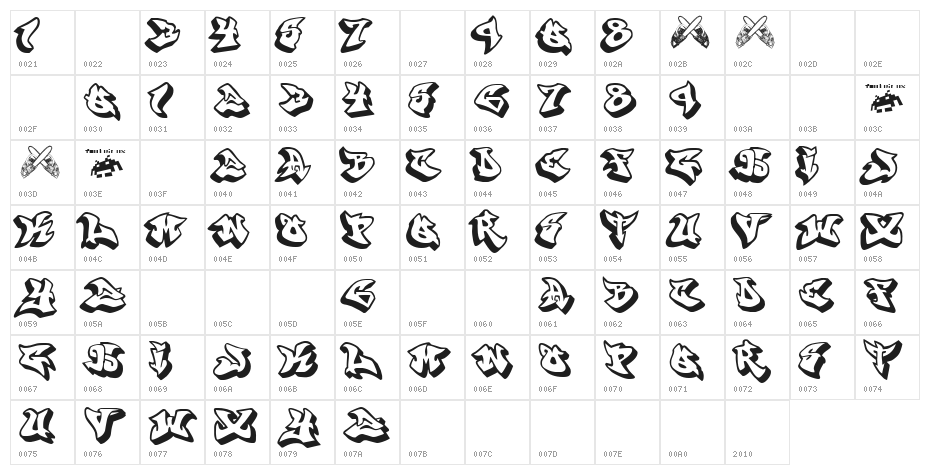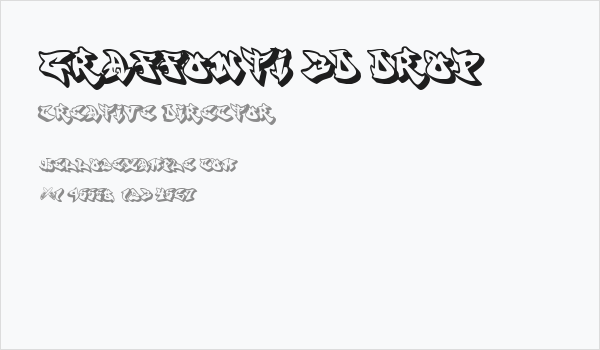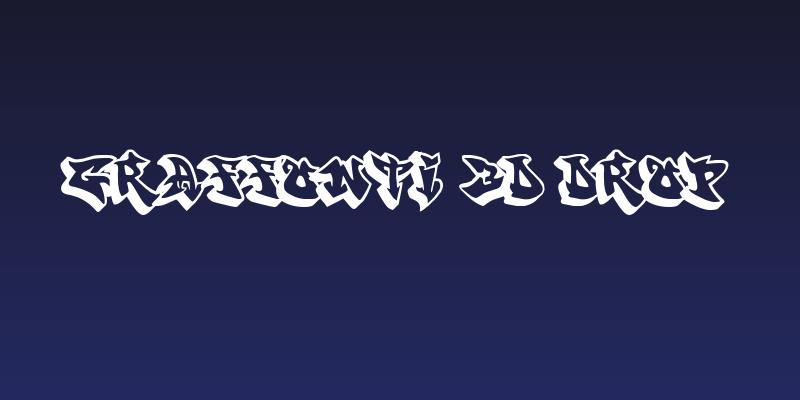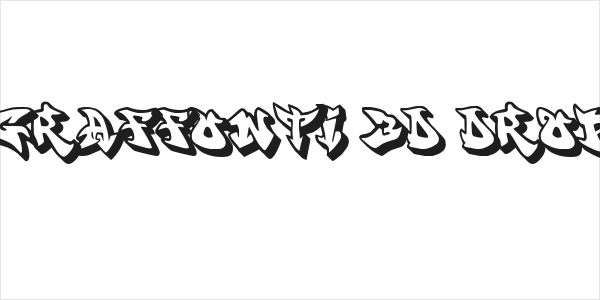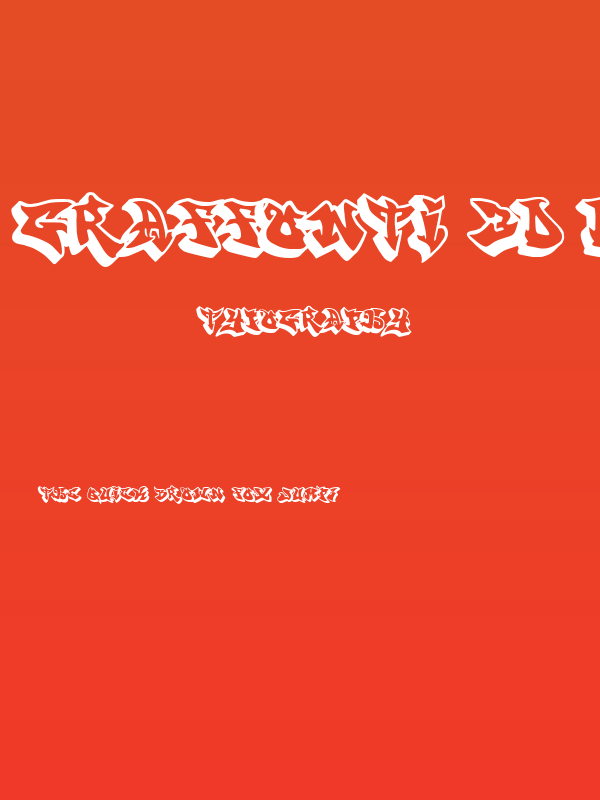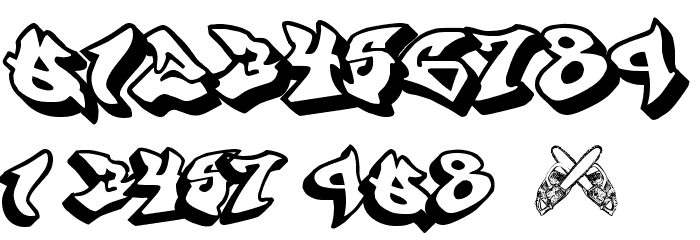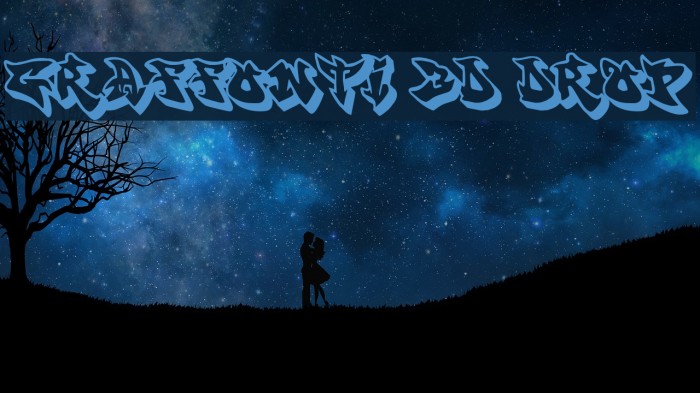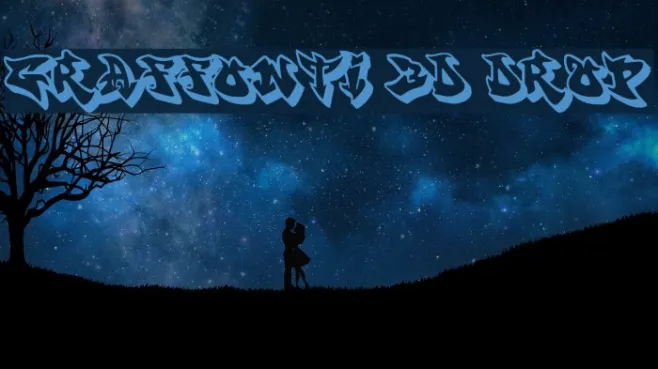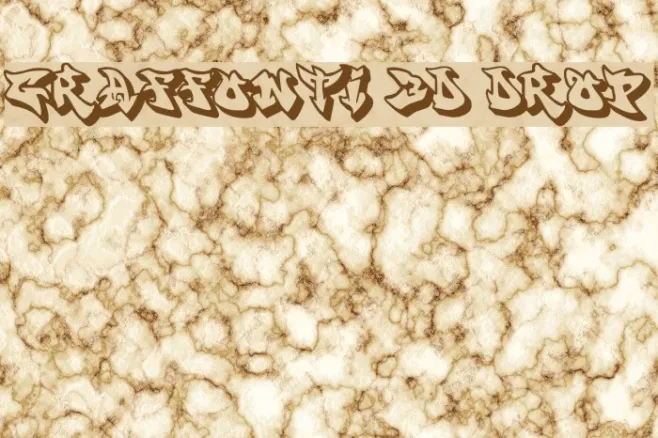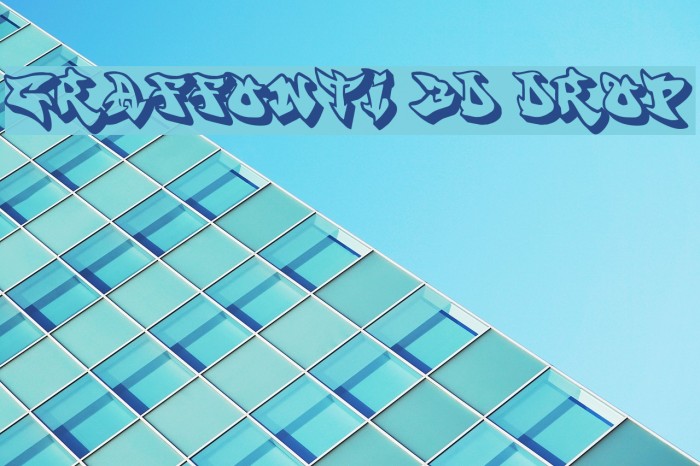
graffonti.3d.drop Font
graffonti.3d.drop Description
This font features a bold, graffiti-inspired style with a 3D drop shadow effect that gives it a dynamic and urban feel. The characters are highly stylized with sharp angles and exaggerated curves, creating a sense of movement and energy. The uppercase and lowercase letters maintain a consistent aesthetic, while the numbers and special characters complement the overall design. This font is perfect for projects that aim to capture a street art vibe or a youthful, rebellious spirit.
| Overall Style | Urban, Energetic, Rebellious |
| Proposed Projects | Ideal for street art-themed designs, urban event posters, music album covers, and edgy branding projects. |